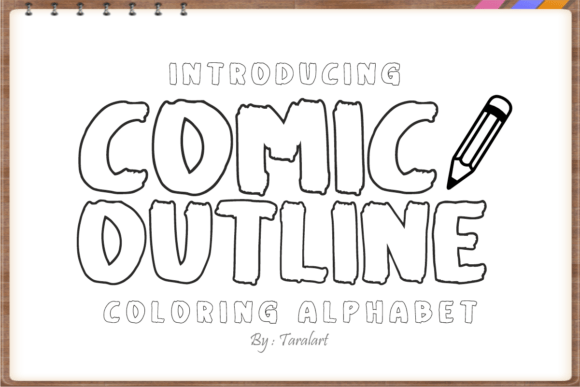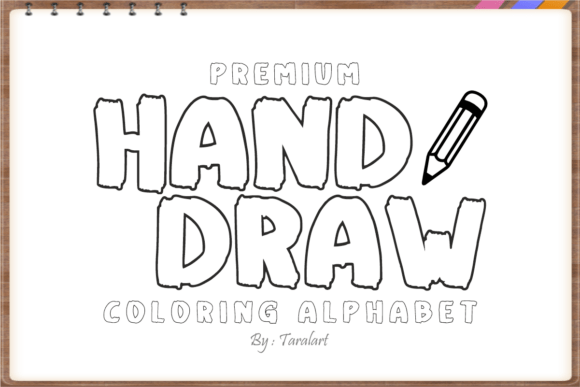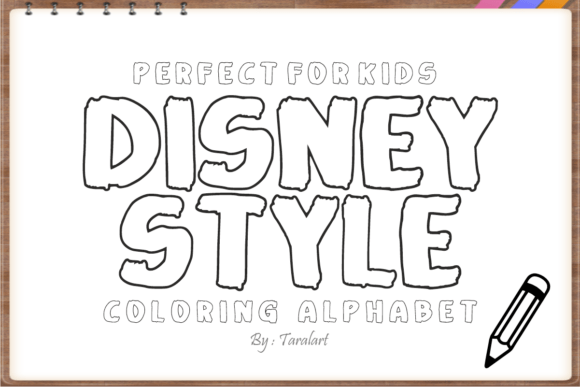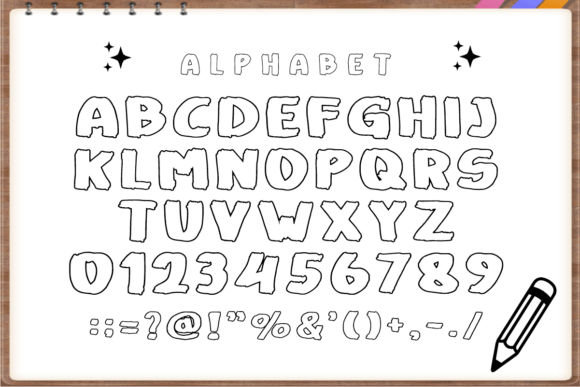
The Power of Comic Outline Font
Remember that moment when you stumbled upon the perfect font to bring your creative vision to life? The one that made your design pop and your message shine? For many designers, that moment is a rush of excitement and inspiration. And for those who have discovered the Comic Outline Font, that moment is a reality.
The Comic Outline Font is a bold and natural font designed to elevate any creation. From logos and greeting cards to mugs and invitations, this font has the potential to enhance any work. Its versatility and charm make it a valuable addition to any designer’s library, allowing them to experiment with new ideas and bring their imagination to life.
With the Comic Outline Font, designers can unlock new possibilities and take their creative projects to the next level. Its unique style and charm make it a standout choice for any design, and its versatility ensures that it will remain a trusted favorite for years to come.
Comic Outline Font Key Features
- Font Family: Comic Outline Font is a sans-serif font designed to resemble comic book lettering.
- Unique Characteristics: Features a bold, outlined design with a rounded edge, giving it a distinctive comic book look.
- Legibility: Designed for easy reading and legibility, even at small font sizes.
Comic Outline Font Review
As a designer, I’ve had the chance to work with various fonts, and I must say that Comic Outline Font is an interesting choice. ✨ The font’s bold lines and playful curves immediately caught my attention, and I think it would be perfect for comic books, children’s books, or even graphic novels.
- ✨ The font’s bold lines and playful curves make it perfect for illustrations and graphic novels.
- ✨ The font’s simplicity and readability make it easy to use for long passages of text.
- ✨ The font’s versatility makes it suitable for a wide range of projects, from comic books to children’s books.
Limitsations:
- ⚠️ The font may be too childish for more mature projects or audiences.
- ⚠️ The font’s simplicity may make it less suitable for projects that require a more sophisticated or elegant look.
- ⚠️ The font may be too bold for projects that require a more subtle or understated look.
Overall, I think Comic Outline Font is a great choice for designers who want to add a playful and whimsical touch to their projects. However, it may not be the best choice for more mature or sophisticated projects. With the right use, this font can be a great addition to any designer’s toolkit.
Comic Outline Font is commonly used for:
- Comic book covers and graphics
- Cartoon-style text and titles